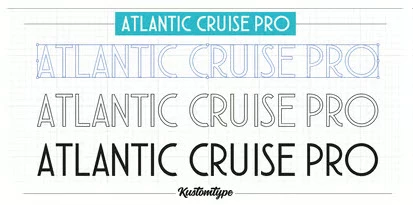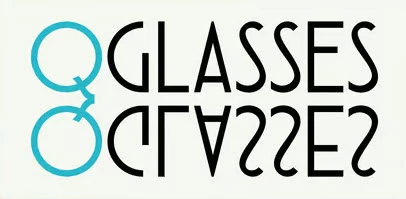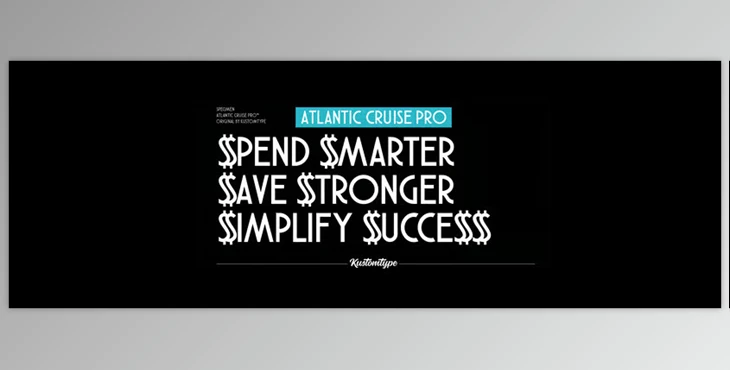
Capturing 1950’s travel posters Atlantic Cruise Pro typeface is a vintage-inspired mid-century modern font designed by Kustomtype. This bold font captures the astonishing retro appeal and versatility making it ideal for multiple design pieces. The Atlantic typeface bring forth a unique blend of old world charm and modern functioning.